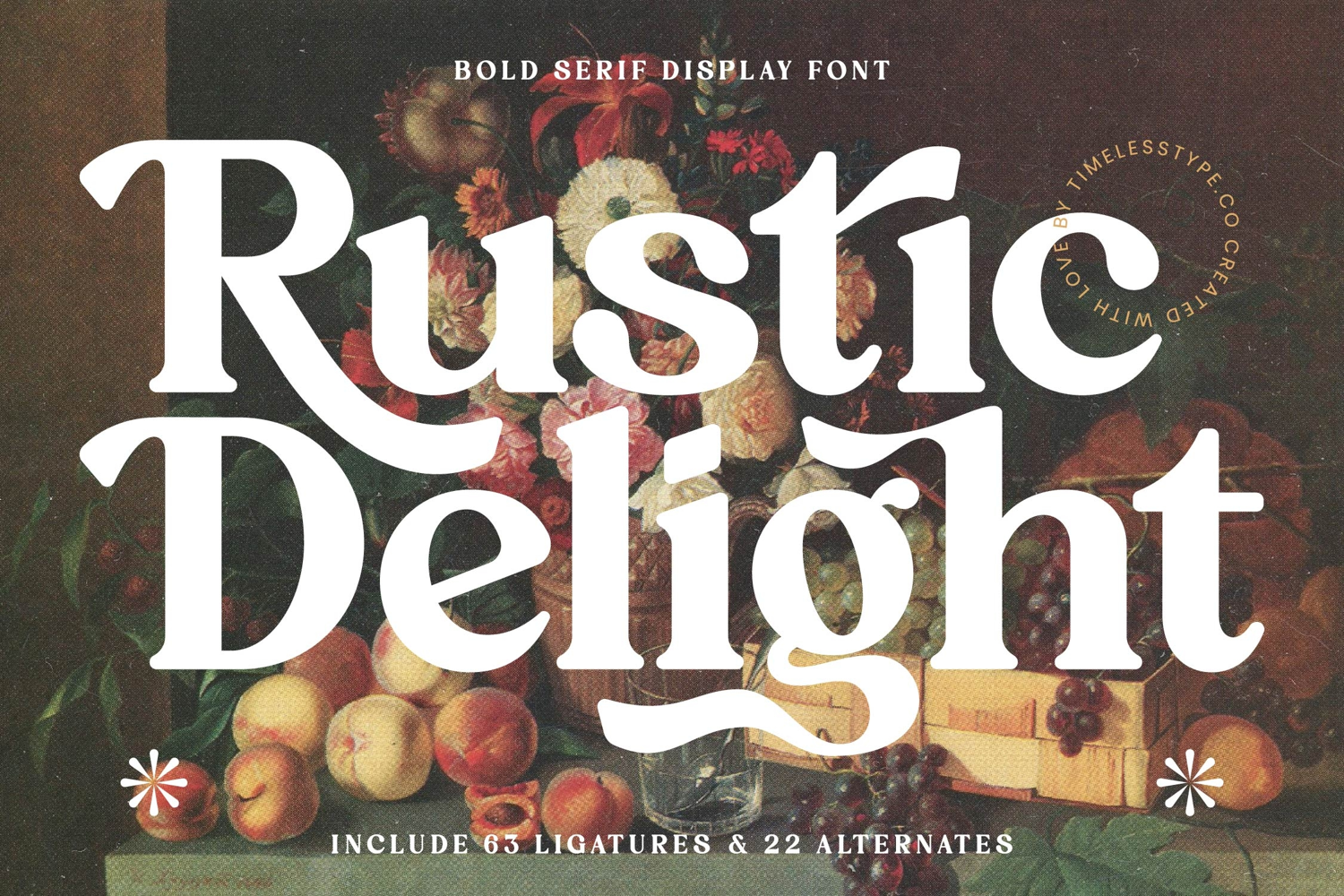
Rustic Delight - Bold Serif Display Font
Rustic Delight is a bold serif display font that blends timeless vintage elegance with modern boldness. Its chunky serifs, high contrast strokes, and decorative alternates create a strong yet refined aesthetic, perfect for designs that need both presence and sophistication. With 63 ligatures and 22 alternates, Rustic Delight gives designers endless possibilities to craft expressive, unique, and artistic typography.
This font excels in headline typography, where its bold forms and stylish alternates capture immediate attention across posters, banners, and editorial layouts. In branding and logo design, Rustic Delight conveys heritage and authenticity, making it an excellent choice for artisanal products, lifestyle brands, restaurants, and boutique businesses that want to stand out with a timeless identity. Its bold structure also makes it highly effective for packaging design, particularly for gourmet goods, beverages, cosmetics, and handcrafted items where typography must highlight quality and exclusivity.
Rustic Delight thrives in advertising campaigns, wedding invitations, and event promotions, where its ligatures and alternates add individuality and flair. For editorial spreads, book covers, and cultural projects, the font delivers classic refinement with a touch of modern creativity.
With multilingual support, Rustic Delight adapts seamlessly to international projects, making it a versatile typeface for global branding and publishing.
Ultimately, Rustic Delight is more than a font—it is a visual signature of vintage artistry and modern strength. Whether used in editorials, branding, packaging, or advertising, it ensures every project communicates elegance, confidence, and unforgettable character.